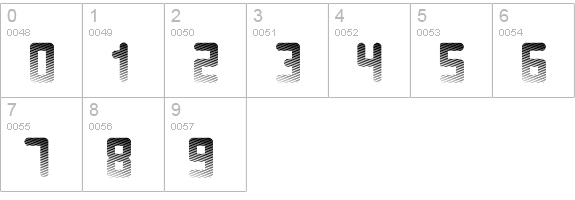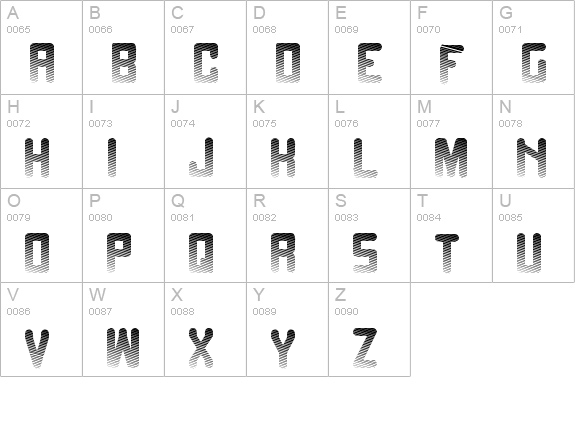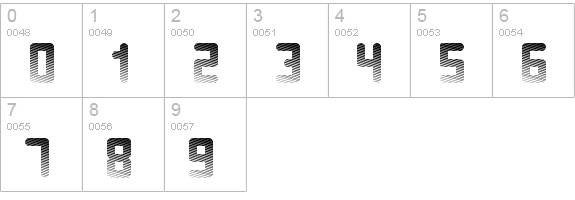
Fade to grey Font Details
Fade to grey font is a stunning typeface that exudes elegance and sophistication. With its unique blend of smooth curves and sharp edges, this font captures the essence of modern design. It is the perfect choice for any project that requires a touch of class and style. What sets Fade to grey font apart is not only its visually appealing aesthetics but also the fact that it is free. Yes, you read that right! This incredible font is freely available to download at FontsMarket.com. Now you can elevate your designs without breaking the bank. Whether you are working on a branding project, creating eye-catching posters, or designing a sleek website, Fade to grey font will effortlessly enhance your work. Its versatility allows it to adapt to various styles and themes, making it an invaluable asset for any designer. The attention to detail in this font is remarkable. Every letter is meticulously crafted, ensuring a seamless and harmonious flow. The clean lines and balanced proportions create a sense of balance and harmony, making Fade to grey font a pleasure to read and work with. With its wide range of glyphs and characters, Fade to grey font offers endless possibilities for creative expression. From uppercase to lowercase, numbers, punctuation marks, and even special characters, this font has it all. It provides you with the tools to create visually stunning and captivating designs. So why wait? Download Fade to grey font for free today at FontsMarket.com and unlock the potential to bring your designs to life. Don't miss out on this incredible opportunity to elevate your work and make a lasting impression. Get your hands on Fade to grey font now and let your creativity soar.